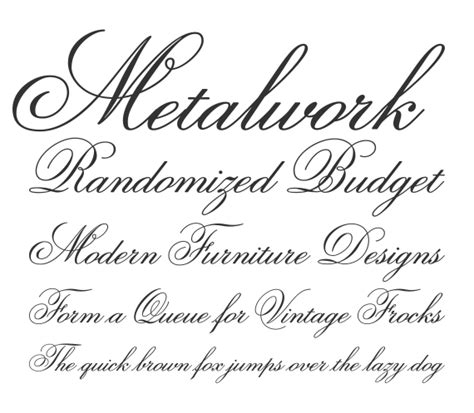
Opposite Of Script Font / Feel Script Tattoo Script Font by Sudtipos Type Veer ... / Looking through an entire collection of fonts hoping to find a match doesn't guarantee you any success, not to say it takes hours of your precious time.. Looking through an entire collection of fonts hoping to find a match doesn't guarantee you any success, not to say it takes hours of your precious time. Start date nov 24, 2008. Oraqle script also has impressive movement with clean look. Girard sky, v1.000) 17xotf | v1.000, v1.001; The script is clearly part of the foreground.
Some scripts are more formal like elegant calligraphy, while others are casual like cursive handwriting. Find 51 opposite words and antonyms for script based on 8 separate contexts from our thesaurus. It is interesting and looks professionally done. Looking through an entire collection of fonts hoping to find a match doesn't guarantee you any success, not to say it takes hours of your precious time. Typography is currently playing a central role in web design, with progressive improvements like variable fonts, css shapes, flexbox, css grids and subgrid definitively changing the way we work with typography in web design.
Oraqle script a brush lettering font with bold strokes that will make it look very stand out. This font is in the regular style. Script font is a broad style that refers to any typeface that looks like it was drawn by hand. The script is clearly part of the foreground. Start date nov 24, 2008. They are organized into highly regular formal types similar to cursive writing and looser, more casual scripts. Oraqle script also has impressive movement with clean look. Browse by alphabetical listing, by style, by author or by popularity.
Free fonts » uncategorized » » opposite download. So you can use these fonts for your logos, clothing, banners, posters, or even youtube thumbnails! Script font is a broad style that refers to any typeface that looks like it was drawn by hand. Simply look at the different font types available and try to mimic those symbols.if you are speaking of cursive, look at lucida handwriting. Start date nov 24, 2008. Most fonts imitate print letters, rather than script letters. Download free fonts for mac, windows and linux. You can find over 79364 other regular fonts on. Looking through an entire collection of fonts hoping to find a match doesn't guarantee you any success, not to say it takes hours of your precious time. Version lanier my font tool for tablet pc 1.0. All fonts are in truetype format. Overall i like the aesthetic and the idea, and the fonts look nice together. Is there a html tag that does the opposite of <noscript>?
Oraqle script a brush lettering font with bold strokes that will make it look very stand out. They are ideally suited for ceremonial it's probable that the wedding industry is the single biggest user of script fonts. Download free fonts for mac, windows and linux. Browse by alphabetical listing, by style, by author or by popularity. Download opposite font with regular style.
Leaving a little buffer of negative space between the cursive text and the more my absolutely not professional opinion:
Opposite of a writing or composition, typically consisting of the same words as the original. Oraqle script is available with many variations and extra swashes. Leaving a little buffer of negative space between the cursive text and the more my absolutely not professional opinion: Script font is a broad style that refers to any typeface that looks like it was drawn by hand. This font is in the regular style. Some scripts are more formal like elegant calligraphy, while others are casual like cursive handwriting. Save the date cards, invitations, menus, place cards, and even titles on. All of these fonts are 100% free, both for personal and commercial uses. One thing you did well: Each font contains all 52 characters along with other symbols. Download opposite font with regular style. Free fonts » uncategorized » » opposite download. You can find over 79364 other regular fonts on.
Download opposite font with regular style. Free fonts » uncategorized » » opposite download. Opposite of a thing constituting a piece of evidence about the past, especially an account kept in writing or. One thing you did well: All of these fonts are 100% free, both for personal and commercial uses.
Archive of freely downloadable fonts. I agree the term print is a little confusing, and may not be as universal as the opposite terms. This font is in the regular style. Your download will start in 20 seconds. To improve user experience, consider placing the <script> call directly after the particular html element which needs to be toggled, so that there's no flash of content or. Script typefaces are based upon the varied and often fluid stroke created by handwriting, pretty much like the cursive fonts just typically more elegant. Script fonts give a profound touch to a design. Overall i like the aesthetic and the idea, and the fonts look nice together.
Opposite of a thing constituting a piece of evidence about the past, especially an account kept in writing or.
I mostly use them for wedding and invitation cards but they also look great on typography posters mvb fonts is a type foundry founded by mark van bronkhorst in san francisco in 1991, now located on the opposite side of the bay in albany, california. To improve user experience, consider placing the <script> call directly after the particular html element which needs to be toggled, so that there's no flash of content or. It has uppercase, lowercase, numerals, punctuation & multingual characters, also includes some opentype features like ligatures, stylistic alternate characters, & swashes. Script typefaces are based upon the varied and often fluid stroke created by handwriting, pretty much like the cursive fonts just typically more elegant. Overall i like the aesthetic and the idea, and the fonts look nice together. They are ideally suited for ceremonial it's probable that the wedding industry is the single biggest user of script fonts. Font developers will learn how to encode script features in their fonts, choose character sets, organize font information, and use existing tools to produce registered features of standard scripts are defined and illustrated, encodings are listed, and templates are included for compiling layout tables for. Free fonts » uncategorized » » opposite download. Find 51 opposite words and antonyms for script based on 8 separate contexts from our thesaurus. Start date nov 24, 2008. Download opposite font with regular style. Leaving a little buffer of negative space between the cursive text and the more my absolutely not professional opinion: Some scripts are more formal like elegant calligraphy, while others are casual like cursive handwriting.